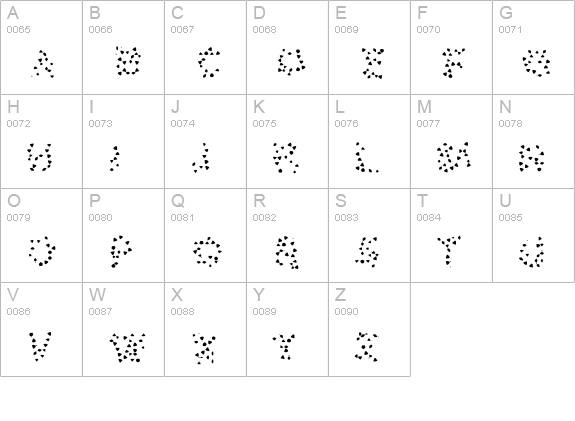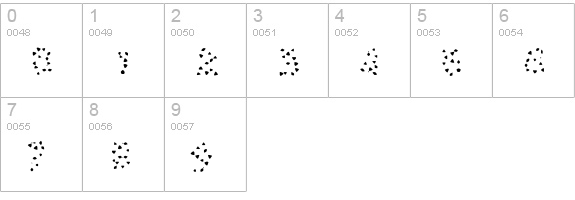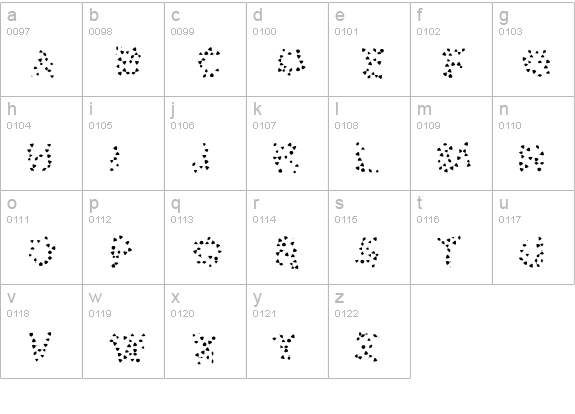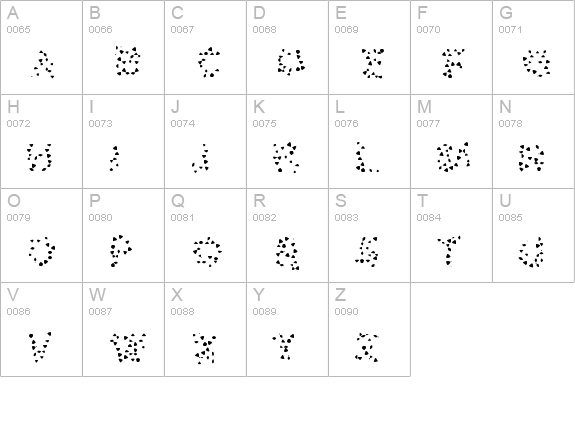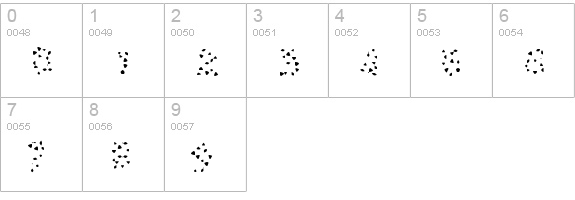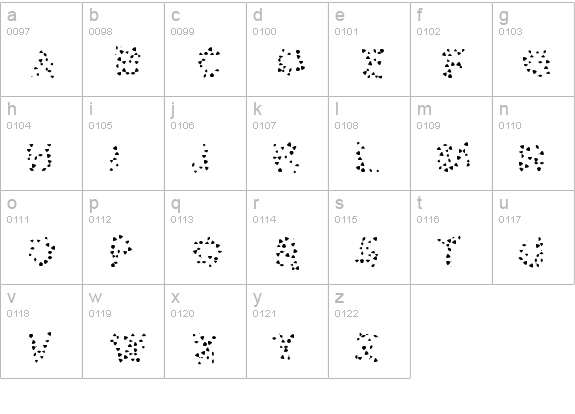
GaudiBlue Tile Font Details
GaudiBlue Tile font is a stunning display typeface that combines intricate tile patterns with a modern twist. Its unique design features geometric shapes and intricate details that make it stand out from the crowd. This font is perfect for adding a touch of elegance and sophistication to your projects. The best part? GaudiBlue Tile font is completely free to download at FontsMarket.com. Whether you're working on a branding project, poster design, or any other creative endeavor, this font is sure to make a statement. Embrace the beauty of GaudiBlue Tile font and elevate your designs to new heights. Download it now and let your creativity shine!